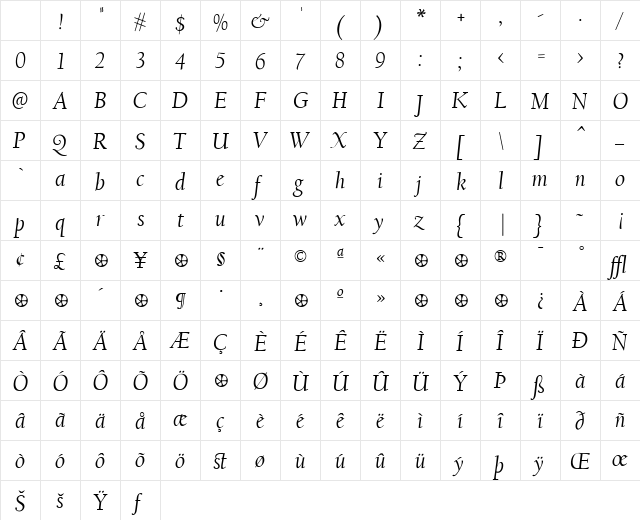
Complete FBCalifornian Italic glyph index. Displaying only characters natively supported by FBCalifornian Italic font.
FBCalifornian is a composed and adaptable typeface that performs quietly and consistently across a wide range of design contexts. The slanted form adds forward momentum and visual energy.
Pro Tip: Use FBCalifornian for emphasis, pull quotes, and subheadings where its slanted energy can add rhythm to the layout.